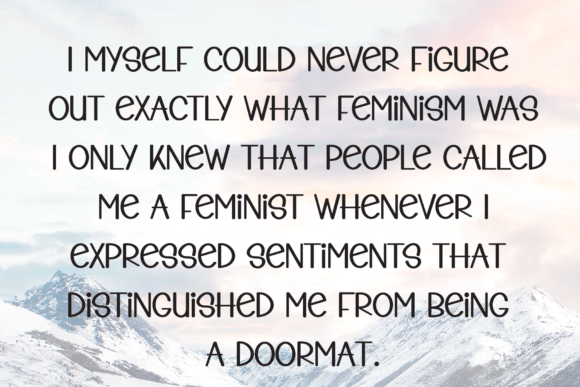
Modern Design Font
Modern Design is a sweet and friendly handwritten font. Cute and fun, this font is ideal for writing wedding invitations, cards, or any other design that might need a fun touch!